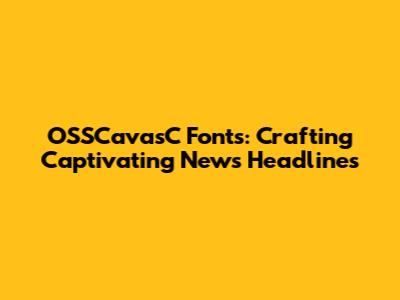
- Clarity: The first and foremost attribute of OSSCavasC fonts is their exceptional clarity. These fonts are crafted to ensure every letter is distinct, eliminating any ambiguity. This clarity is crucial, especially when you have a lot of text to deal with and when the readers need to quickly understand the message, which makes it perfect for news headlines.
- Impact: Apart from clarity, OSSCavasC fonts make a strong visual statement. They are created with an element of boldness that makes the headlines stand out. It's about grabbing attention immediately and making sure the headline does the job of drawing the reader in, which is crucial in a world filled with information overload.
- Versatility: OSSCavasC fonts aren't a one-trick pony. These fonts are designed to work well across different platforms and sizes. Whether it's a headline on a website, a print edition, or a social media post, these fonts are guaranteed to look sharp. They're adaptable, so they can keep up with the evolving needs of digital news.
- Enhanced Readability: In the quick-paced world of news, readability is key. You need a font that your audience can easily read at a glance. OSSCavasC fonts are specifically designed to maximize readability. Their clean design ensures that each character is easily distinguishable, reducing the cognitive load on the reader. This is critical when you have to compete with a host of other information vying for attention.
- Visual Impact and Engagement: Let's face it: in the realm of news, visual impact is important. OSSCavasC fonts possess a natural visual appeal that immediately captures attention. The fonts strike the right balance between simplicity and strength to make a memorable impression, persuading readers to pause and absorb the headline.
- Brand Consistency: Using OSSCavasC fonts allows news outlets to project a consistent brand image. When a publication uses the same font for all its headlines, it helps to create a recognizable visual identity. It increases brand recognition and improves the overall user experience. This leads to increased engagement and brand loyalty. It's all about making sure that the brand stays top-of-mind.
- Font Pairing: Don't go it alone, people! Pair your OSSCavasC font with a suitable body text font. The body text font should complement your headline font in terms of both style and readability. The goal is to create a cohesive design that's easy to read and aesthetically pleasing. Experiment with different pairings to find one that works best for your brand and content. It's all about balance.
- Font Size and Weight: Optimize the font size and weight to make sure your headline stands out without appearing overwhelming. Use a larger font size for the main headline and adjust the weight (bold, regular, etc.) to further emphasize key words or phrases. Finding the right balance will make your headlines even more effective.
- Spacing and Layout: Consider the spacing between letters, words, and lines. Adequate spacing improves readability and ensures that your headlines are easy on the eyes. Also, think about the layout of your headlines. This includes the alignment, positioning, and overall structure. A well-laid-out headline will draw the reader's attention and make them want to read more.
- Testing and Iteration: Don't be afraid to experiment and test different headline styles. Try out various font sizes, weights, and layouts to see what works best for your target audience. Use A/B testing to measure the performance of your headlines and make adjustments accordingly. Data is your friend, so make sure to use it to drive your decisions.
- Bold and Direct Headlines: News outlets often use a bold OSSCavasC font to create a feeling of urgency and importance. This approach is particularly effective for breaking news or headlines that deal with urgent topics. The strong visual impact immediately grabs the reader's attention and makes sure they understand the importance of the headline.
- Headlines with Emphasis: Many news outlets use bolded keywords or phrases within the OSSCavasC font to draw attention to specific pieces of information. This is a super way to highlight key facts or phrases. The strategy focuses the reader's attention, making it easier for them to absorb the information.
- Headlines for Branding: Some news outlets use OSSCavasC fonts as a key element of their branding. They integrate the fonts into their headlines, logos, and other design elements to create a consistent brand image. This helps to build brand recognition and strengthen their identity in the media landscape. The font becomes a visual signature of the brand.
- Adaptive Fonts: Expect to see the rise of adaptive fonts, which change their appearance based on the device or screen size. This helps to ensure that your headlines look great on any device, from a small phone to a massive desktop monitor. Adaptive fonts maximize readability.